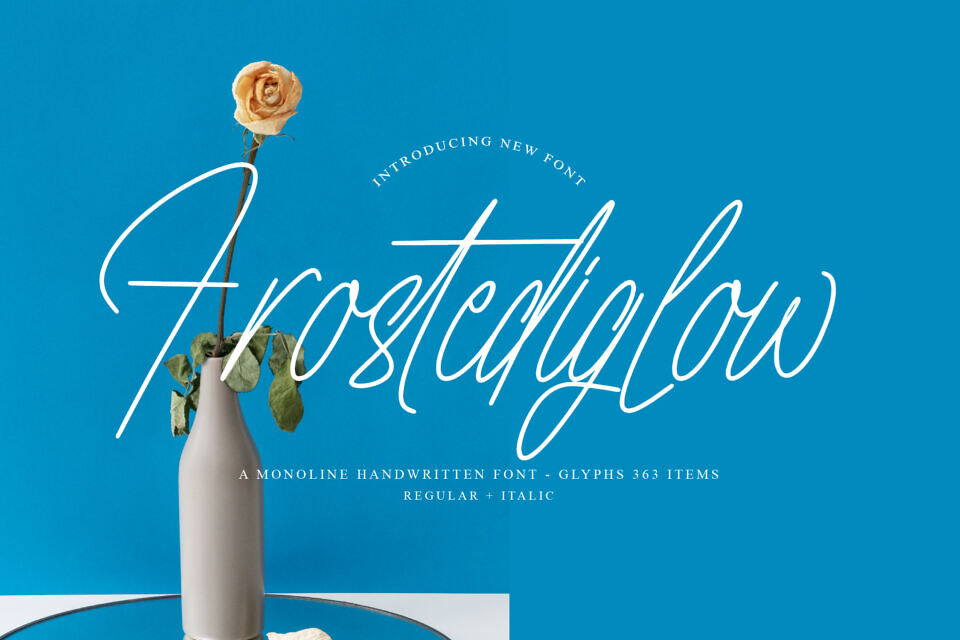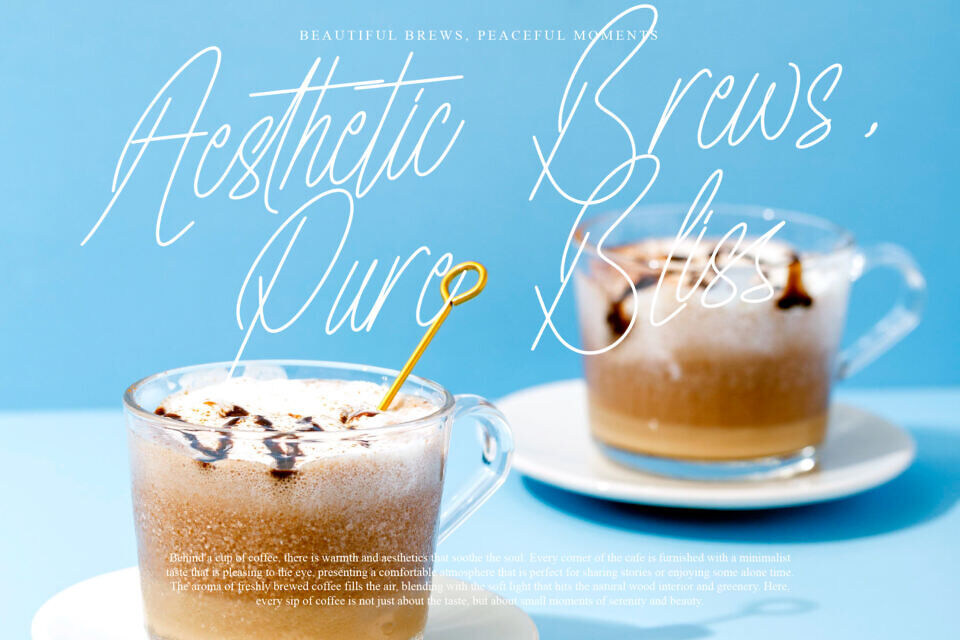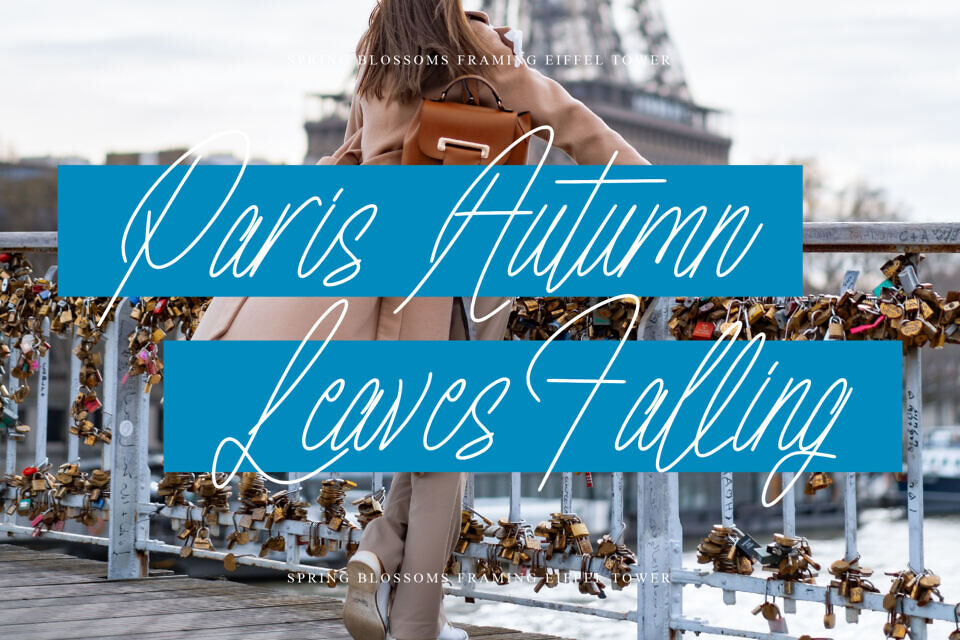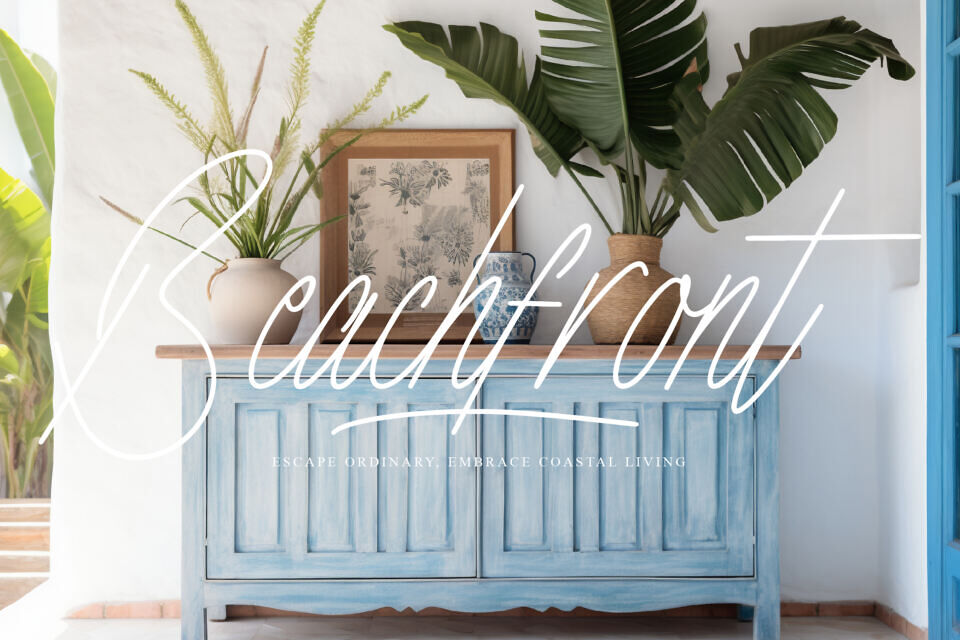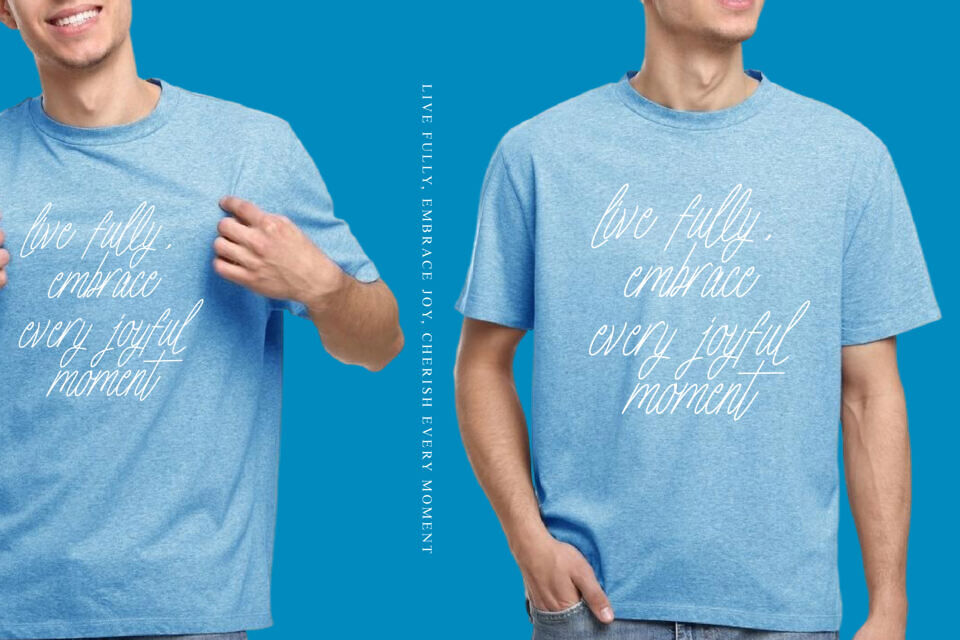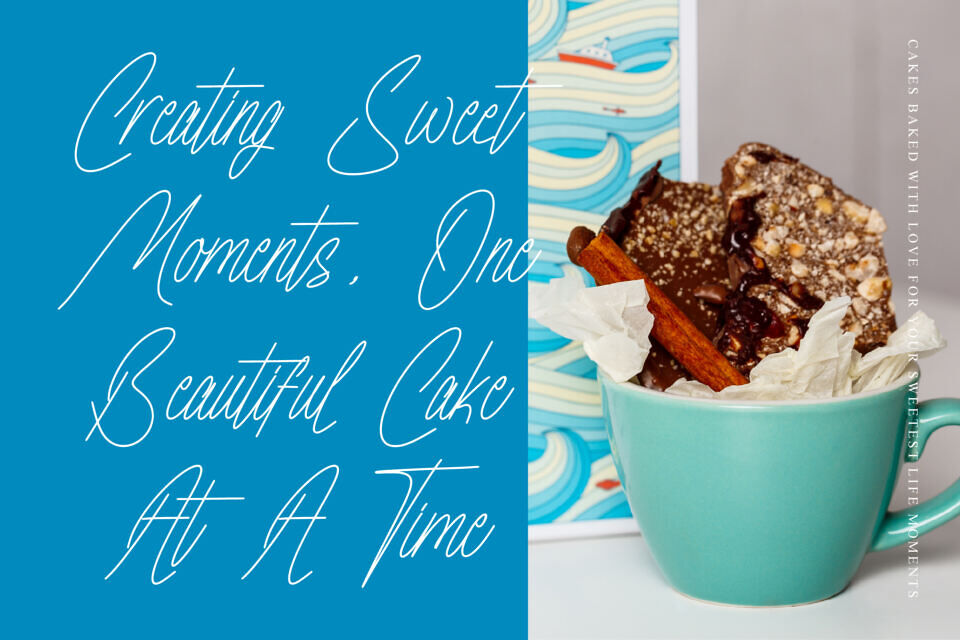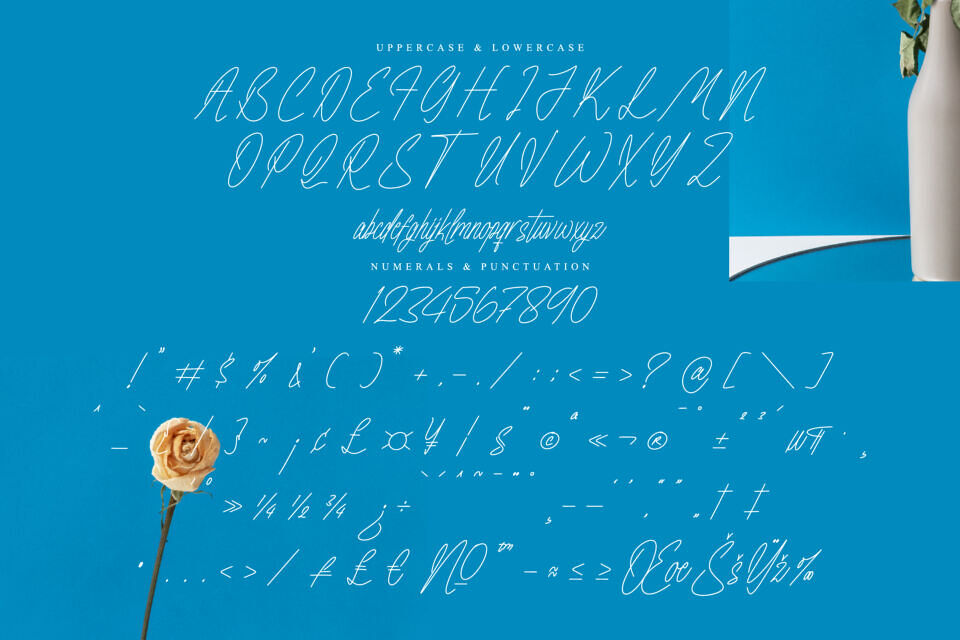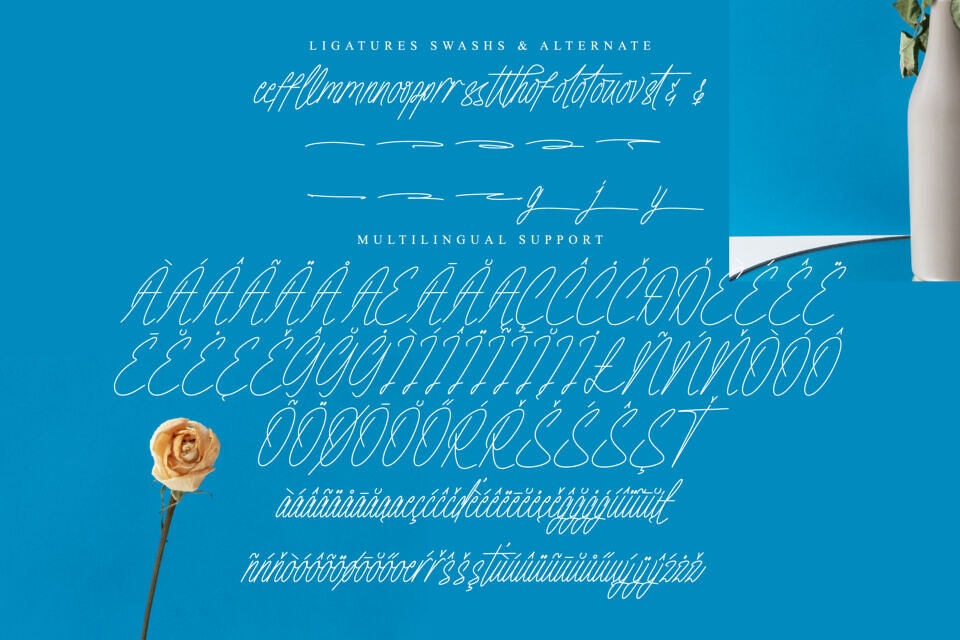
Frosted Glow is a Monoline Handwritten Font from Operatype, perfect for any project like: logos, branding projects, homewares designs, product packaging, mugs, quotes, posters, shopping bags, t-shirts, covers books, business cards, invitation cards, greeting cards, labels, photography, watermarks, special events and all your other luxury projects that require a premium taste.